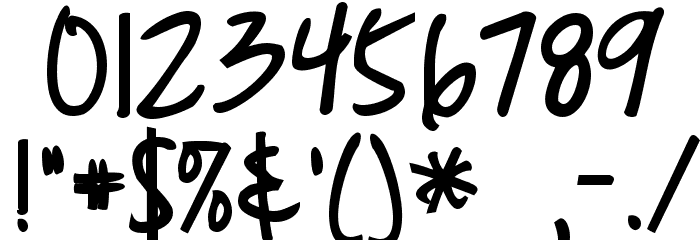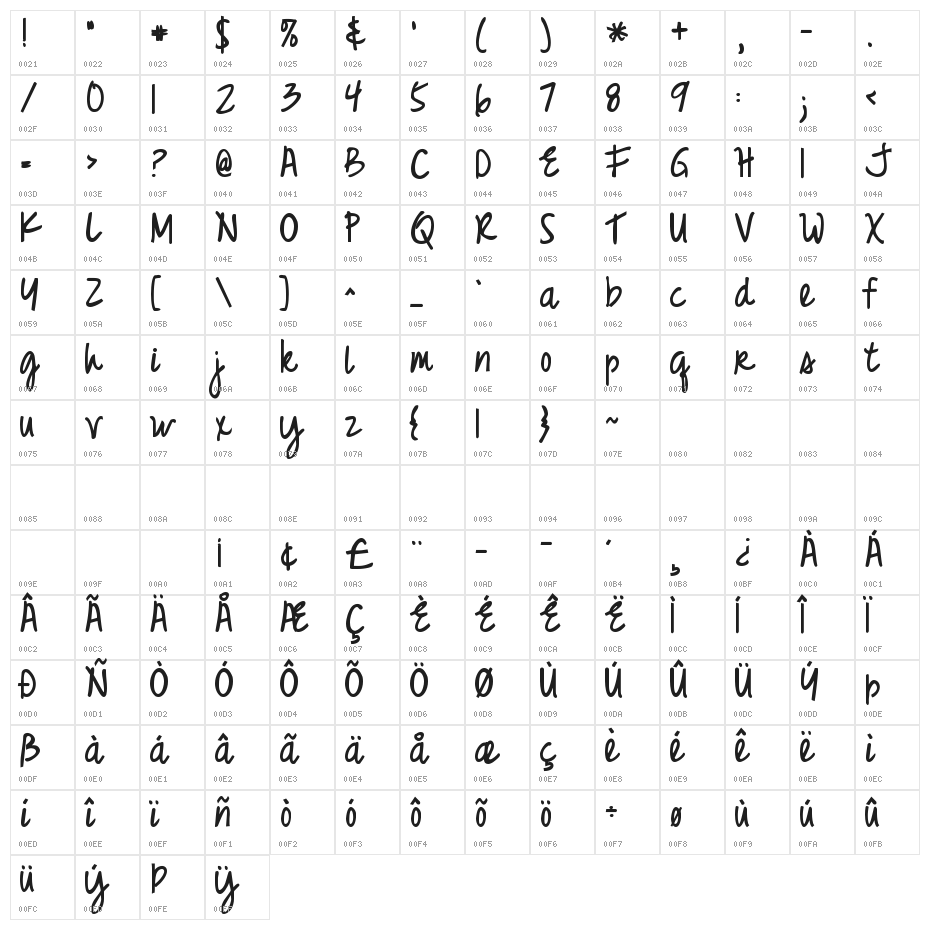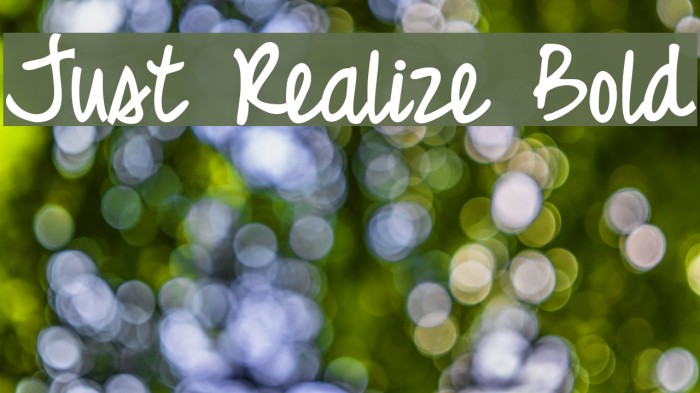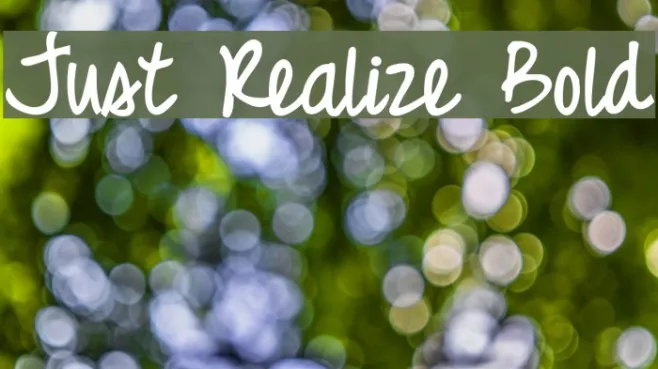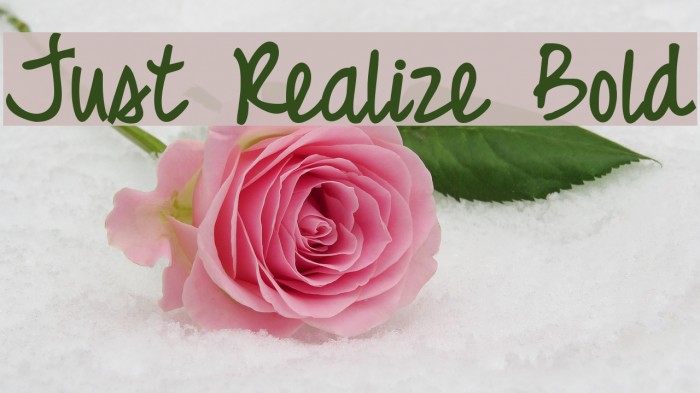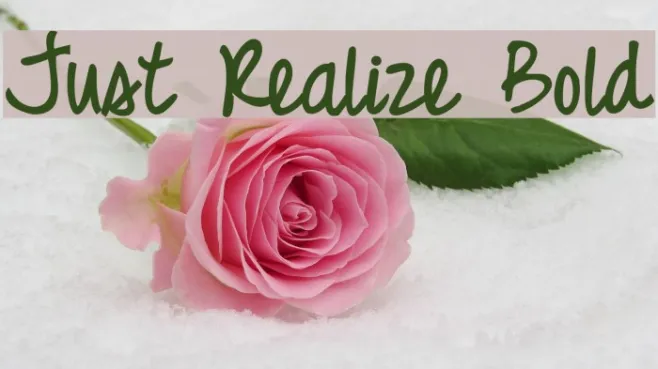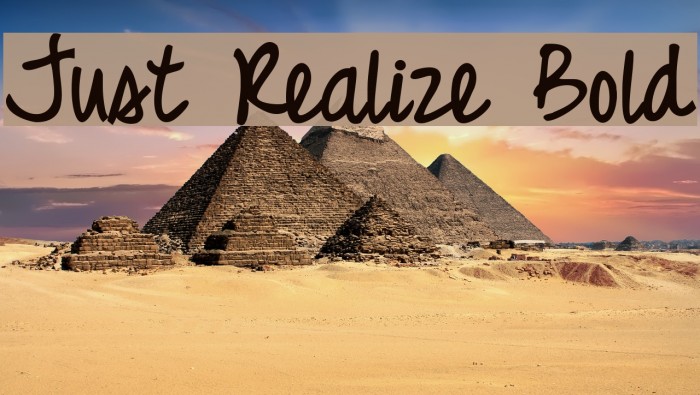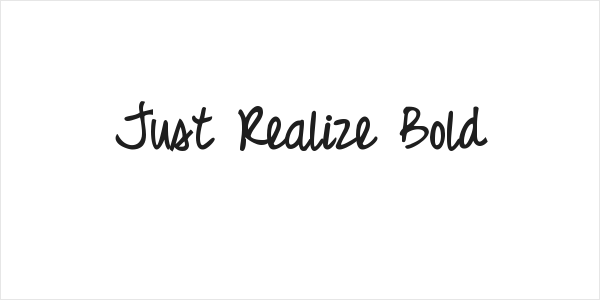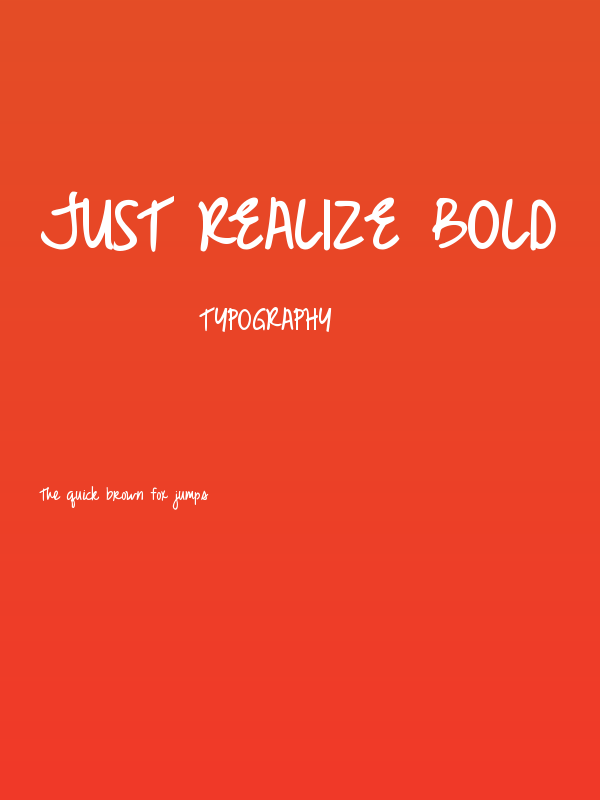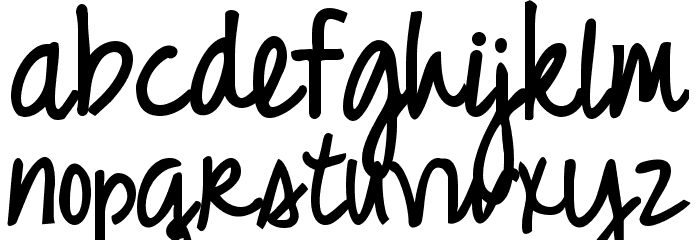
Just Realize Bold Font
Just Realize Bold Description
This font exudes a playful and energetic vibe, characterized by its handwritten style that mimics natural penmanship. The letters are bold and slightly slanted, giving a sense of movement and fluidity. Each character is distinct, with a consistent stroke width that maintains readability while adding a personal touch. The uppercase letters are tall and assertive, while the lowercase letters are more relaxed, creating a harmonious balance. Numbers and special characters follow the same dynamic style, ensuring uniformity across all elements. This font is perfect for projects that require a personal, informal, and approachable feel.
Overall StylePlayful
Use CaseLogos, Headlines, Informal Text
Proposed ProjectsIdeal for greeting cards, personal branding, social media graphics, and informal invitations.